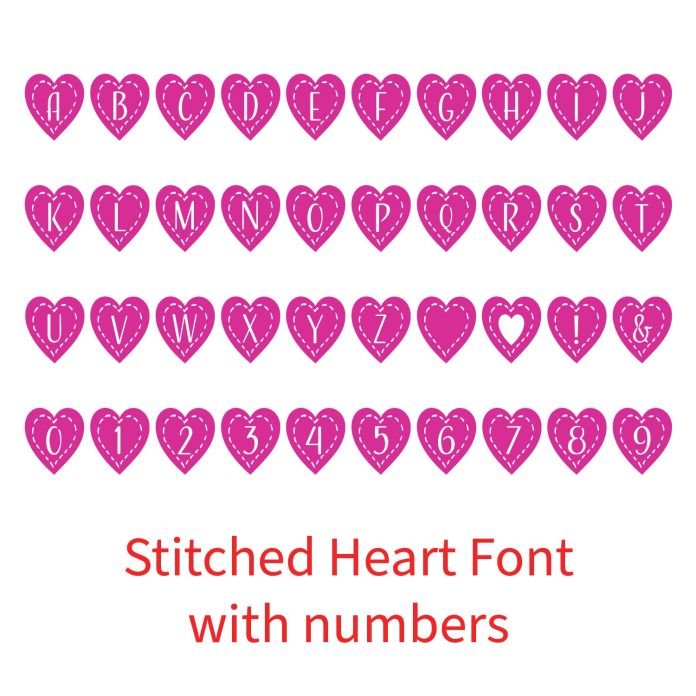
This fun font includes uppercase letters cut out of hearts with a stitching design around each heart. Full alphabet, numbers 0-9, &,! and two blanks that are keyed to the period and comma. OTF File